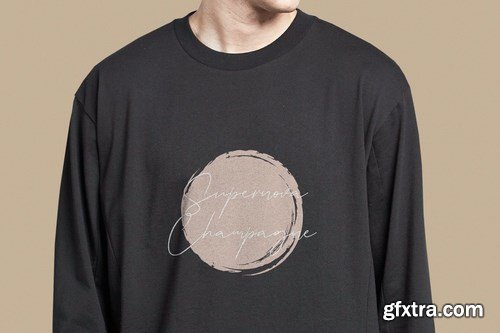
Jifstone Signature Handmade Font
Give your designs an authentic handcrafted feel. Jifstone Signature Handmade Font is perfectly suited to logo, stationery, branding, typography quotes, magazine or book cover, website header, clothing, branding, packaging design, restaurant and more.
Ligatures